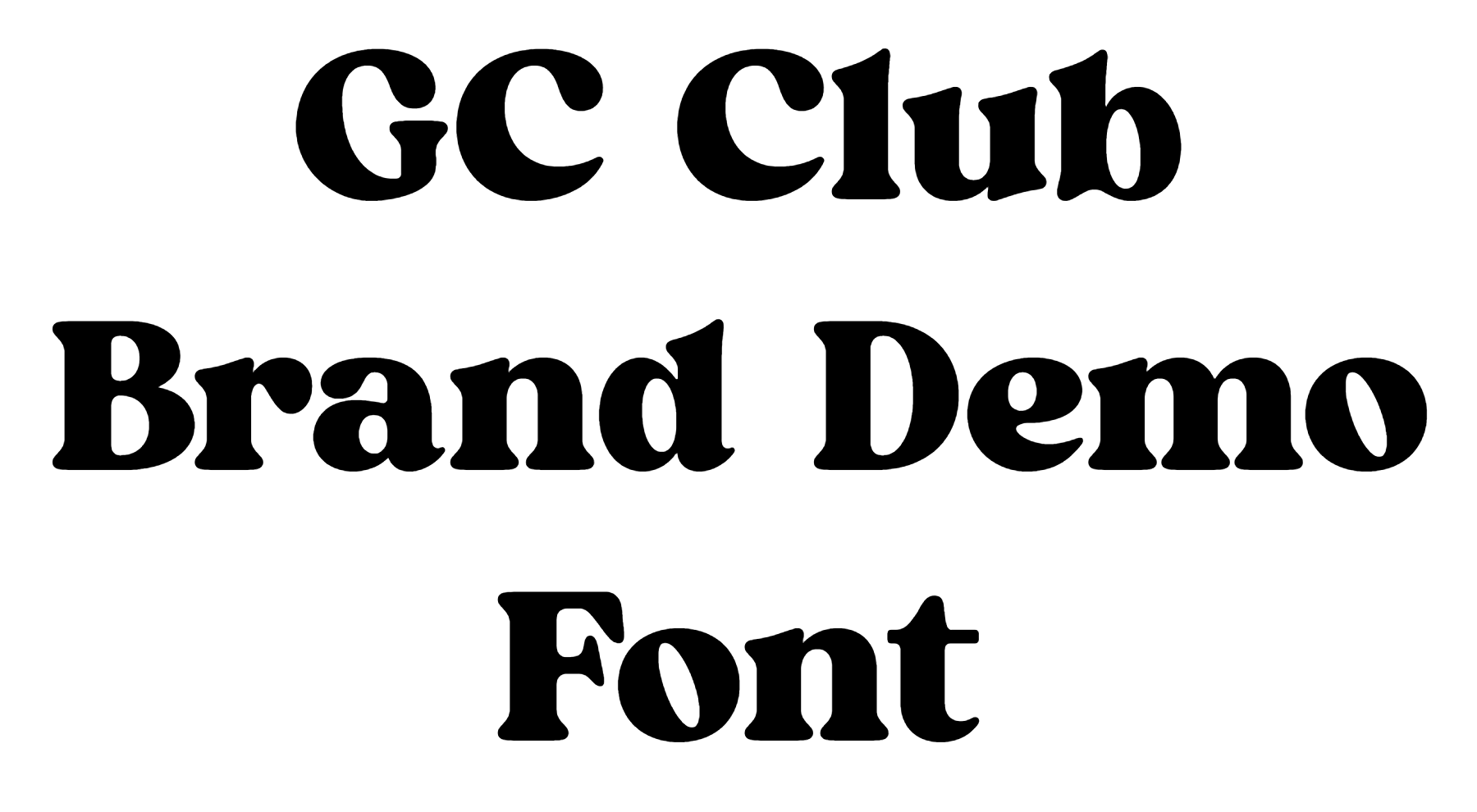
GC Club Brand Demo
GC Club Brand Demo is a serif font created by Firo of Glyphonic and released through Glyphonic (2025). Small strokes at the ends of its letters (the serifs) give it a classic, trustworthy look. It's a free download, and you can try it with your own text in the preview above first.
GC Club Brand Demo has the full alphabet in upper and lowercase. There are no numbers, so you'll need a second font for dates, prices or phone numbers. Punctuation is limited, so look at the character map if you need a specific symbol. It doesn't include accented letters such as é or ñ, which makes it an English-only font.
Designers usually reach for fonts like GC Club Brand Demo when they're making book covers, magazine headlines and classic branding. Its lowercase letters are tall compared to the capitals, which keeps it readable at smaller sizes. Serif fonts shine in headlines and printed text. For long paragraphs on phones, check that it still reads well at small sizes.
No. GC Club Brand Demo has no accented letters such as é, ñ or ü, so it's best for English text.
No. GC Club Brand Demo has no numbers, so pair it with another font for dates, prices or phone numbers.